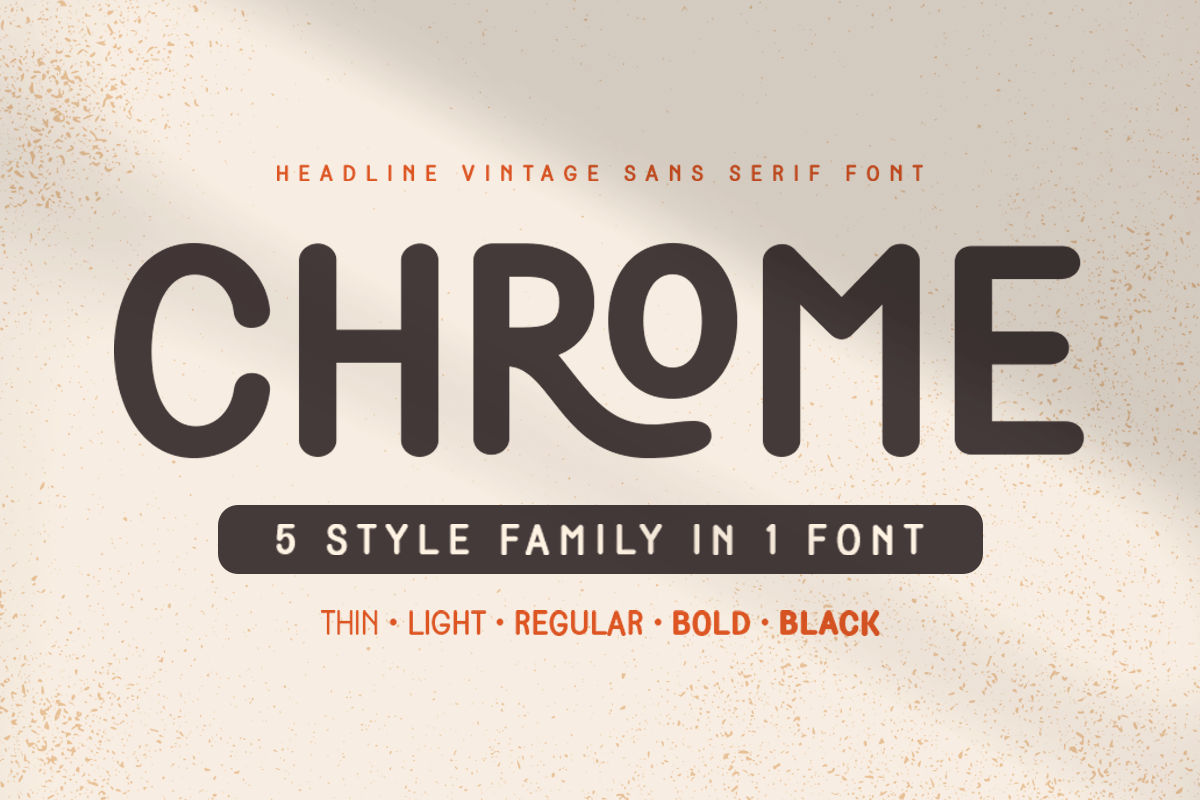
Chrome
-Headline Vintage Sans Serif Font
Chrome is A Headline Vintage font that special created to show a Retro and Display style
A Serif Vintage font that we created special for classy branding needs, with extra ligature in unique and vintage shape add value of your brand. It's so nice to leverage designer or product owner that need solutions to make their design look more vintage and unique.